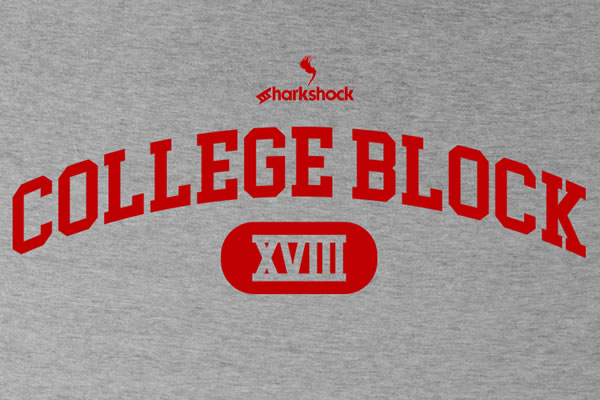
Attention all students and design enthusiasts! Are you tired of scrolling through endless collections of lackluster fonts? Look no further than College Block Font, the ultimate font for all your academic and athletic needs.
Crafted by the talented team at Sharkshock, this display font is a modified version of Blockletter Tall, featuring an array of new glyphs and classic serifs reminiscent of the lettering found on collegiate sweatshirts. With kerning and European accents included, College Block is the perfect choice for any design project.
But College Block is more than just a font - it's a statement. Its bold and commanding presence demands attention and exudes a sense of confidence and determination. Its strong, straight lines and powerful curves embody the spirit of teamwork and perseverance, making it the perfect font for sports teams and campus organizations alike.
Whether you're designing a t-shirt for your intramural team or creating graphics for your school's social media page, College Block is the perfect way to make a statement and stand out from the crowd. So why settle for mediocrity when you can make a bold statement with College Block?